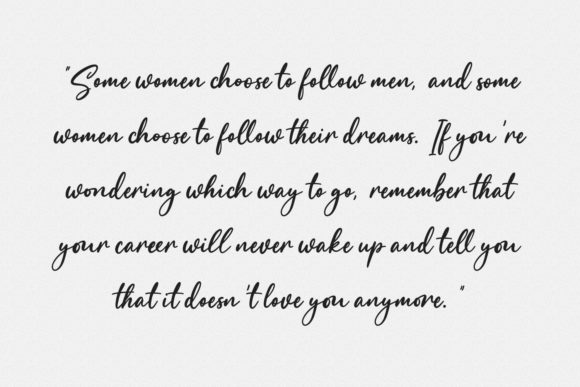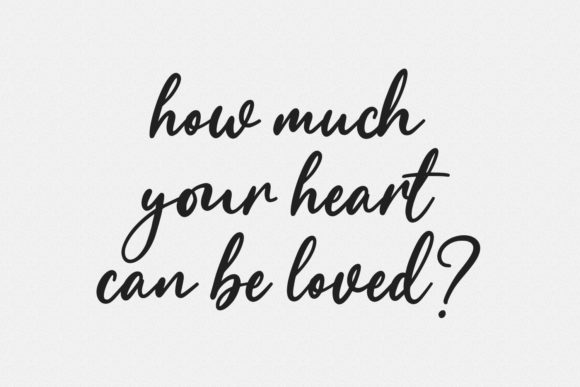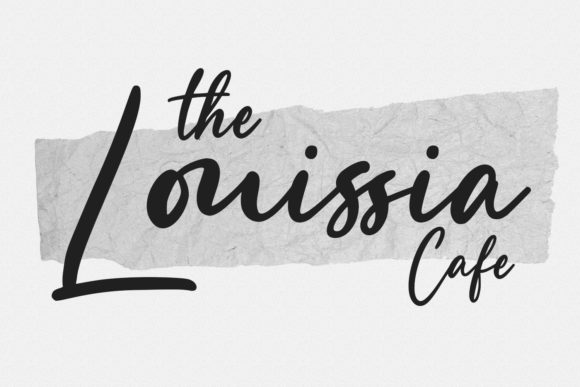
Introduction to Oaktrys Font
As designers, we’ve all been there – staring at a blank canvas, desperately searching for the perfect font to bring our creative project to life. It’s the moment of truth, where the right typography can make or break the entire design. For those seeking a font that exudes elegance and sophistication, look no further than the stunning Oaktrys Font. This gorgeous paint brushed script font is perfect for designers who want to add a touch of class to their product packaging, branding projects, magazine covers, and social media designs.
With its high-quality design and versatility, the Oaktrys Font is a valuable resource for designers who demand the best. Whether you’re working on a free download or a high-end commercial project, this font is sure to impress. Plus, its transparent background makes it easy to layer over any design element, giving you endless possibilities for creative expression.
Key Features of Oaktrys Font
- High-quality design resource ideal for creative projects, including logos, branding, and advertising materials.
- Features a transparent background, allowing for easy customization and layering in your design.
- Designed with precision and attention to detail, resulting in a crisp and clear font that is perfect for print and digital applications.
- Includes a comprehensive character set, covering a wide range of languages and characters, making it a versatile choice for global creative projects.
- Available in multiple font sizes and resolutions, ensuring that it looks great at any scale and resolution, from small text to large headlines.
Honest Review: Oaktrys Font
I recently had the chance to work with the Oaktrys Font for a creative project and I must say it’s been a game-changer. As a designer, I’m always on the lookout for high-quality design resources that can elevate my work.
- What works well: ✨ The Oaktrys Font is incredibly versatile and works beautifully for a wide range of design applications, from branding to editorial content. I also appreciate the transparent background option, which makes it easy to layer over images or other design elements.
However, there are a few limitations to consider. ⚠️ For one, the font is not suitable for all screen sizes and resolutions, which can result in some distortion. Additionally, the font’s complexity may make it difficult to customize and edit.
Overall, I’m impressed with the Oaktrys Font and would highly recommend it for any design project. While it’s not perfect, its high quality and versatility make it a valuable addition to any design resource library.
Design Resource for Creative Projects
Getting the Most Out of Oaktrys Font
To get the most out of Oaktrys Font, use it with a transparent background to create a sleek and modern design. You can also experiment with different font sizes and colors to add visual interest to your design.
Oaktrys Font is perfect for creating titles, headings, and body text for a variety of creative projects, including logos, brochures, business cards, and social media graphics.